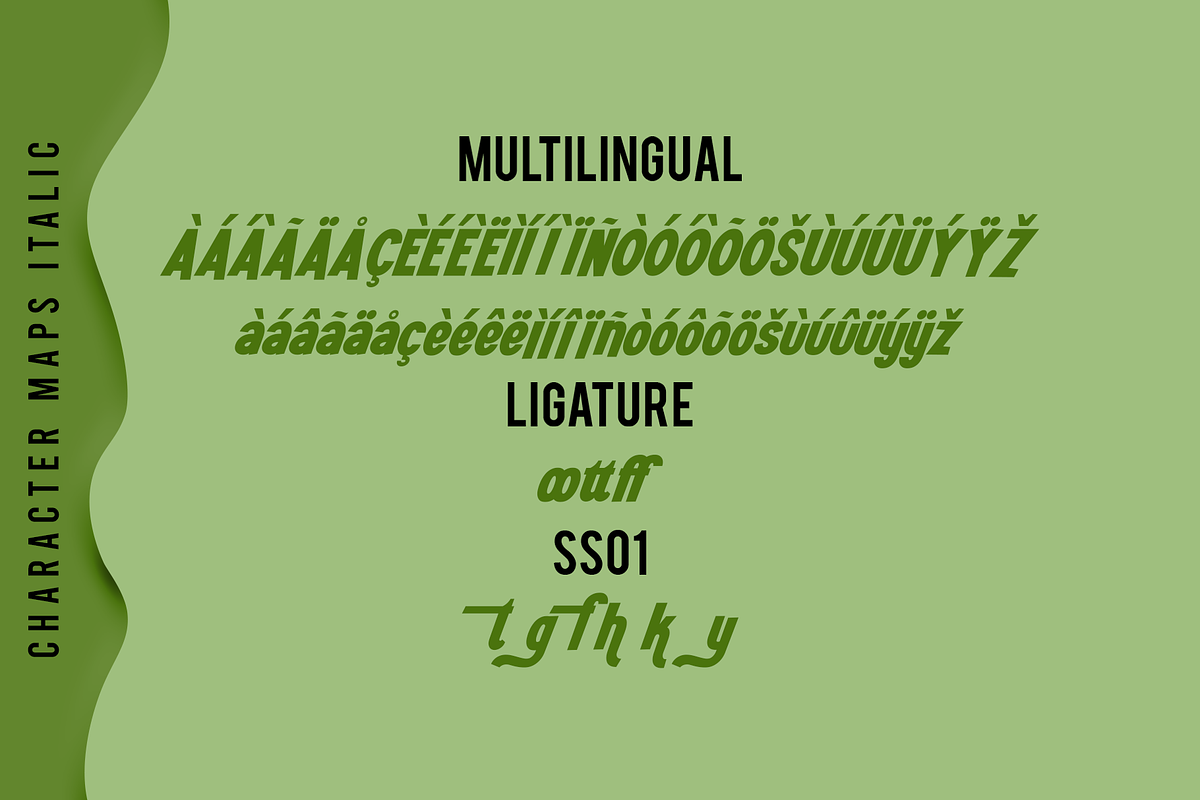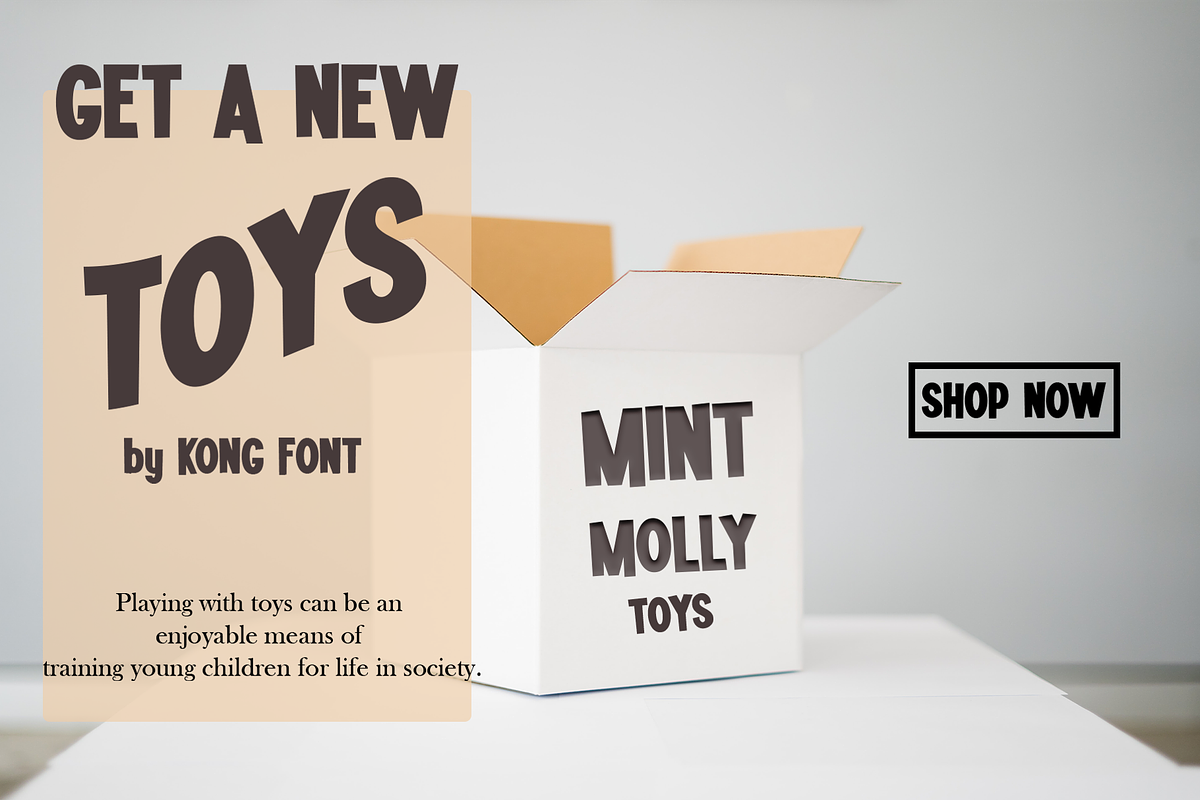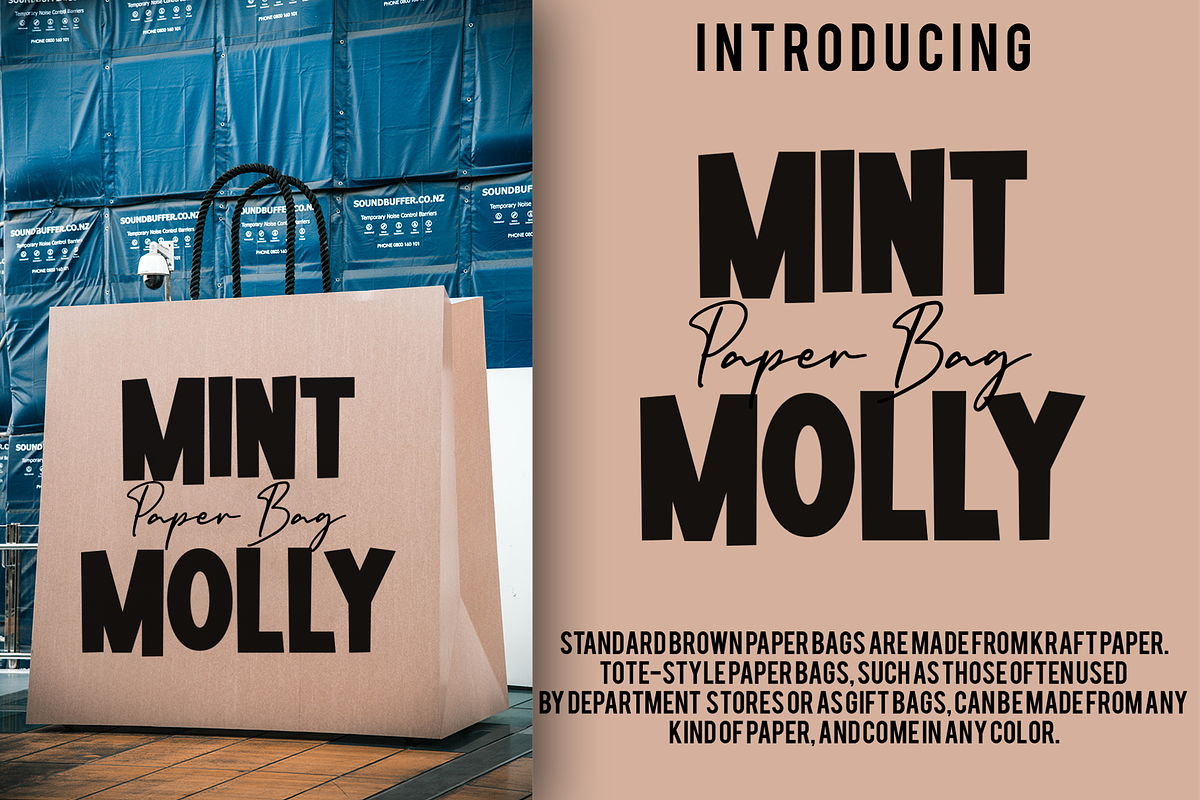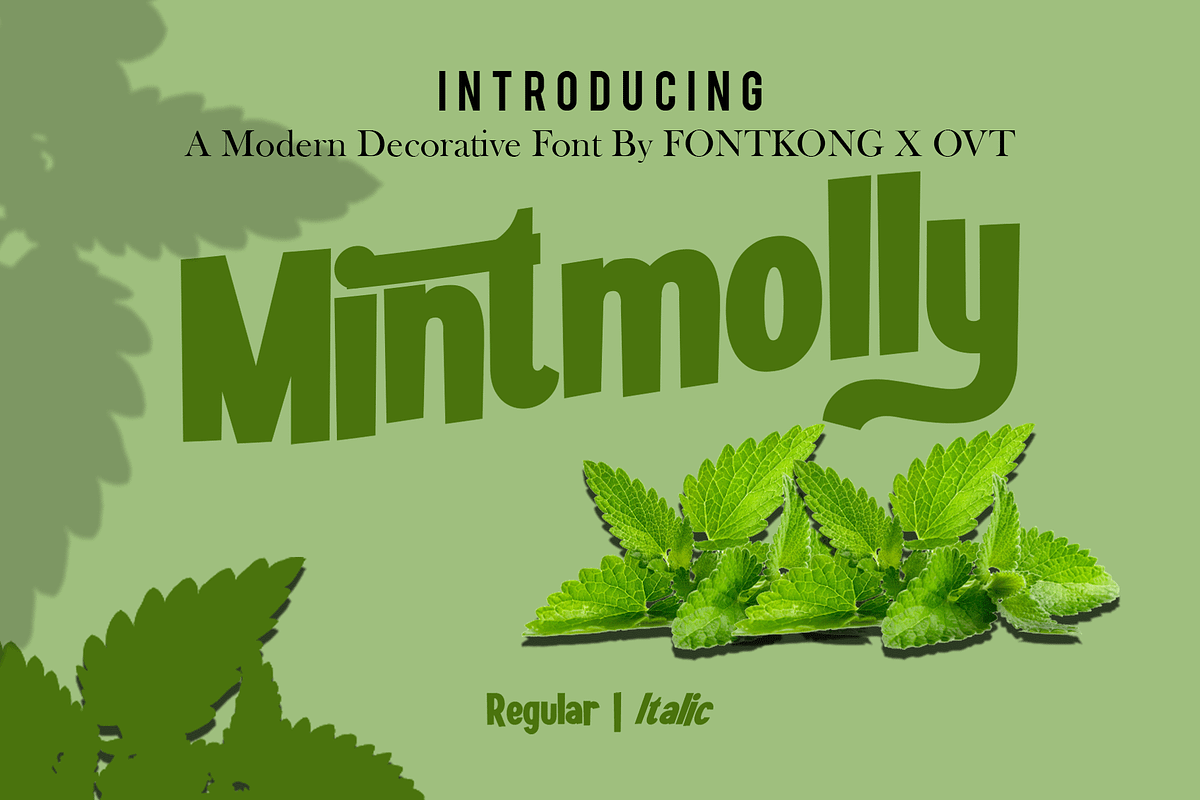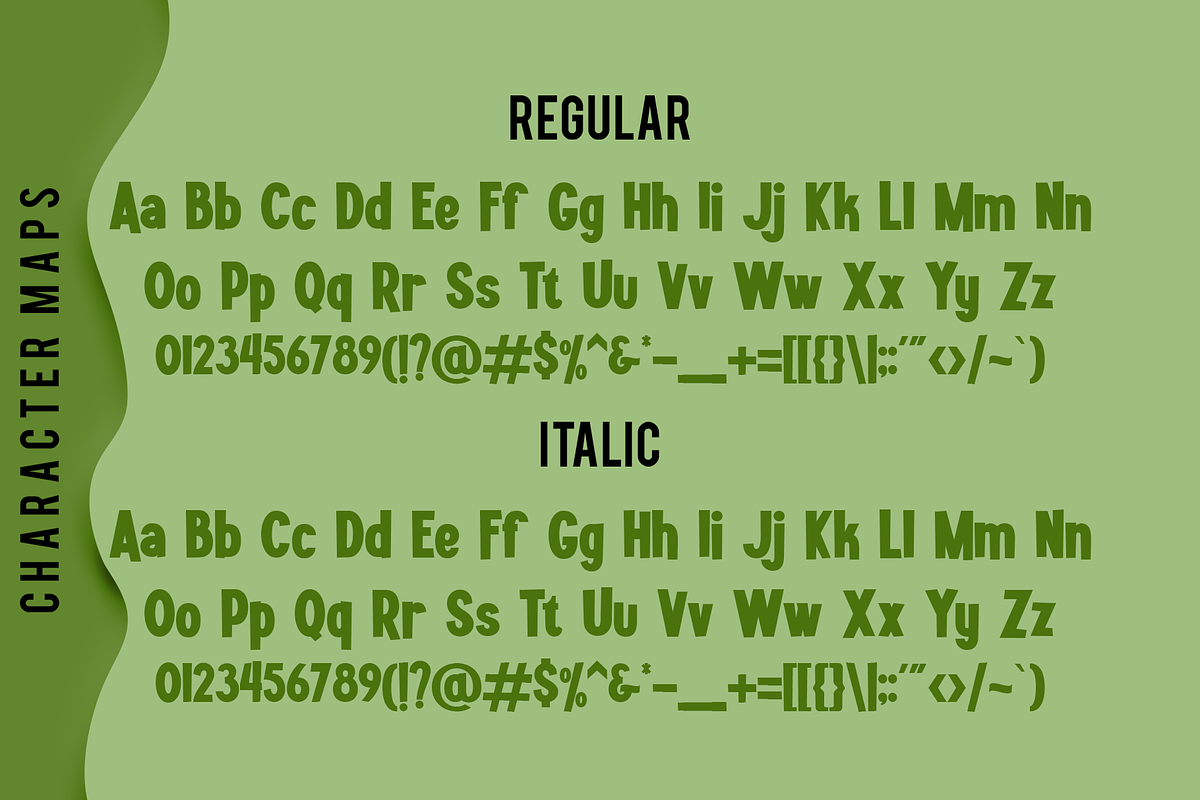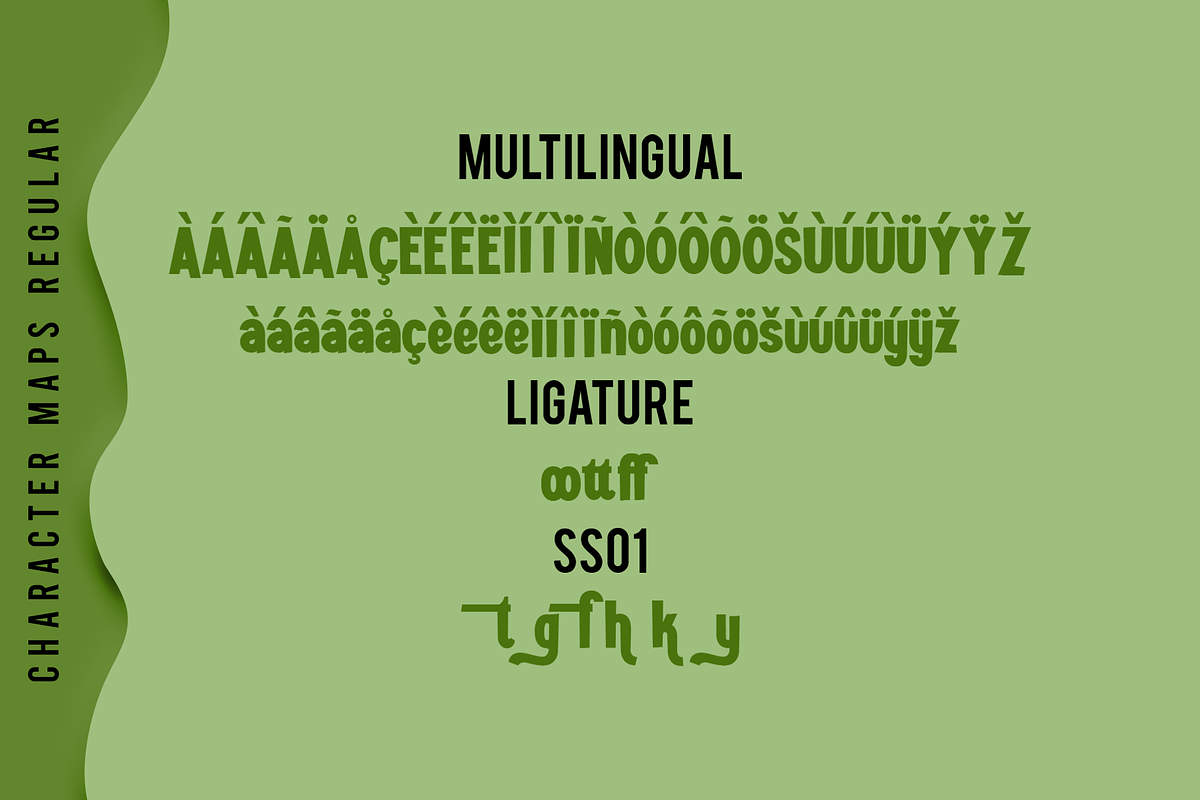
Mintmolly - Modern Decorative Font
Meet "Mintmolly," a striking modern decorative font designed to make a bold statement in your creative projects. With its unique and artistic letterforms, Mintmolly is perfect for adding a touch of contemporary flair to your designs.
This font is ideal for headlines, posters, branding, and any project where you want to capture attention with stylish typography. Mintmolly's intricate details and elegant curves ensure that each character stands out, making it a versatile choice for both digital and print media.
Complete with uppercase and lowercase letters, numbers, punctuation, and special characters, Mintmolly offers flexibility and creativity in your typographic compositions. Whether you're designing a logo, creating packaging, or crafting a modern art piece, Mintmolly provides the artistic edge you need.
Elevate your designs with Mintmolly's modern aesthetic and transform ordinary text into captivating visual elements that resonate with your audience.